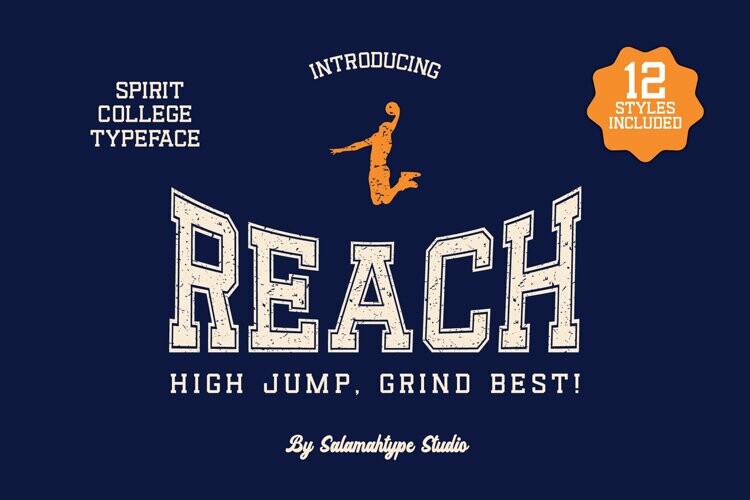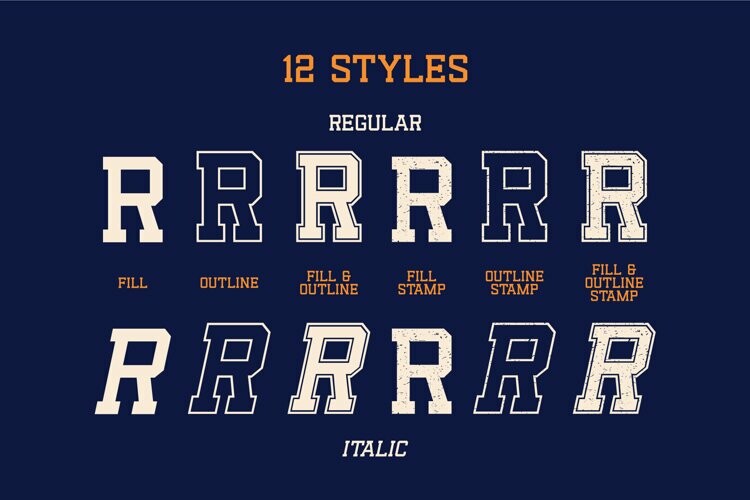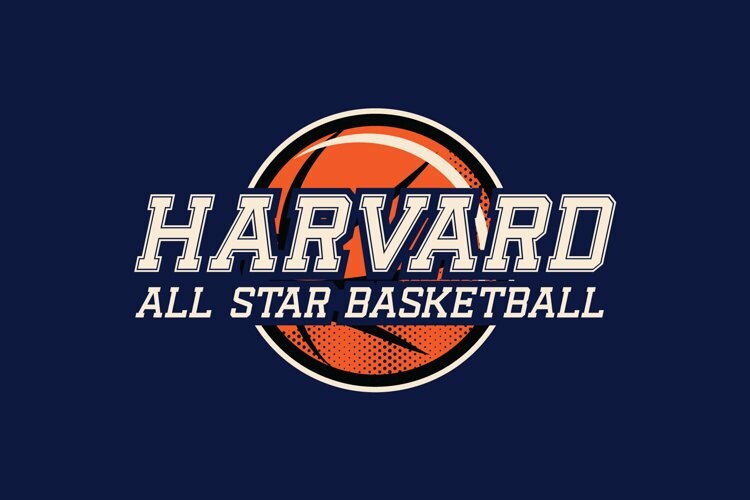
Reach – Sports Font
Reach – Sports Font, display typeface with 12 styles included (Fill-Fill Outline-Stamp-Outline). Perfect for branding projects, logos, labels, logotypes and more.